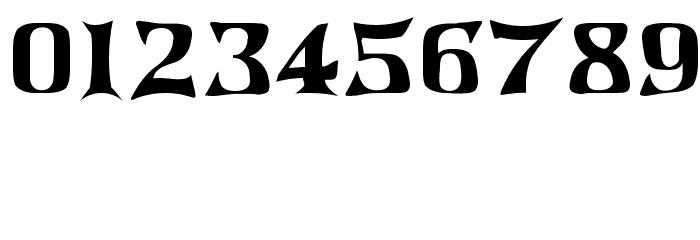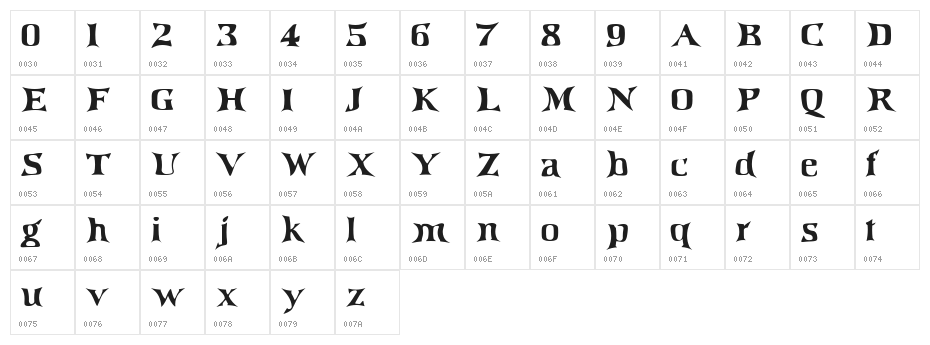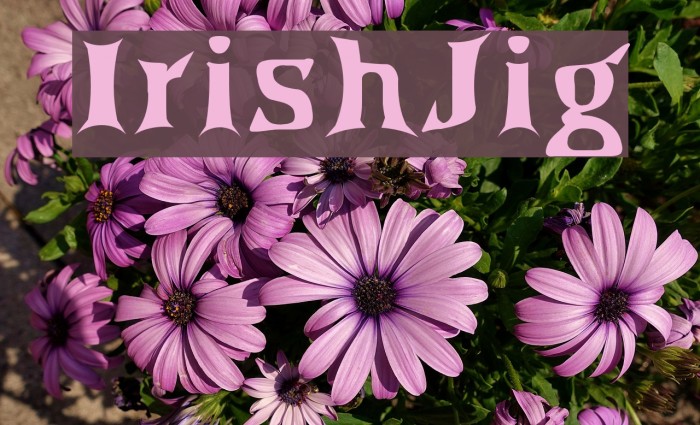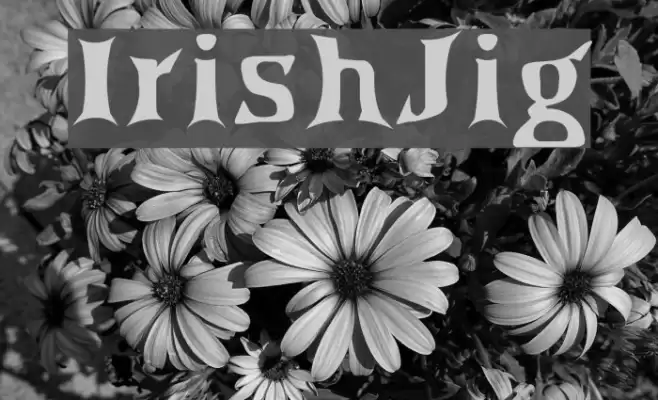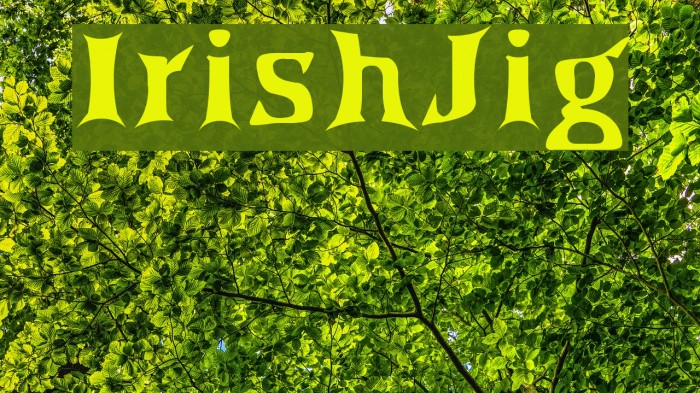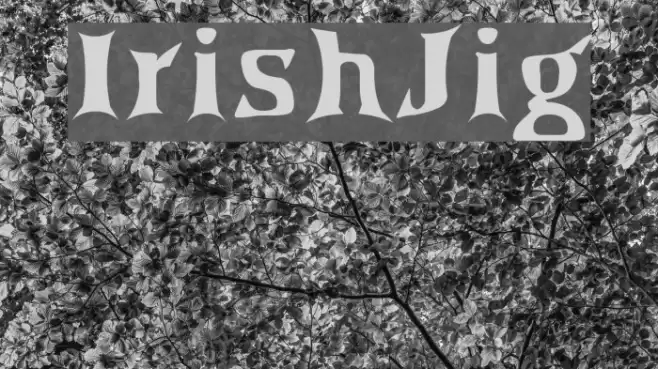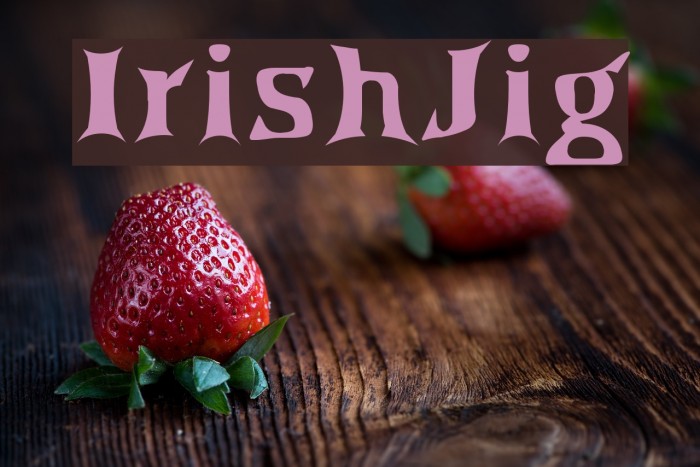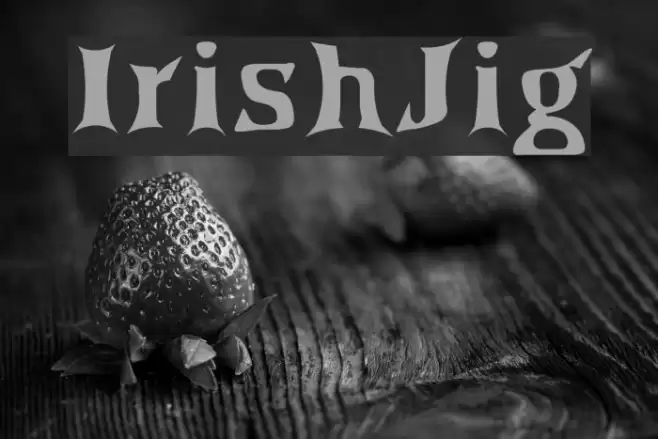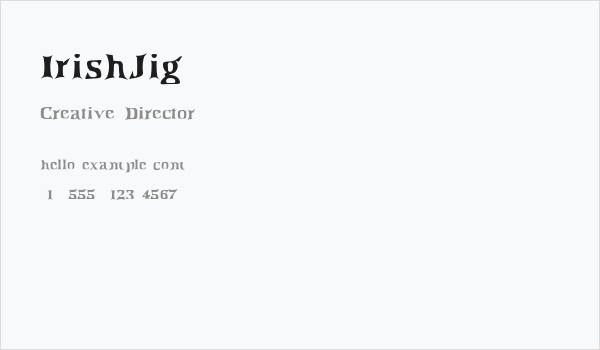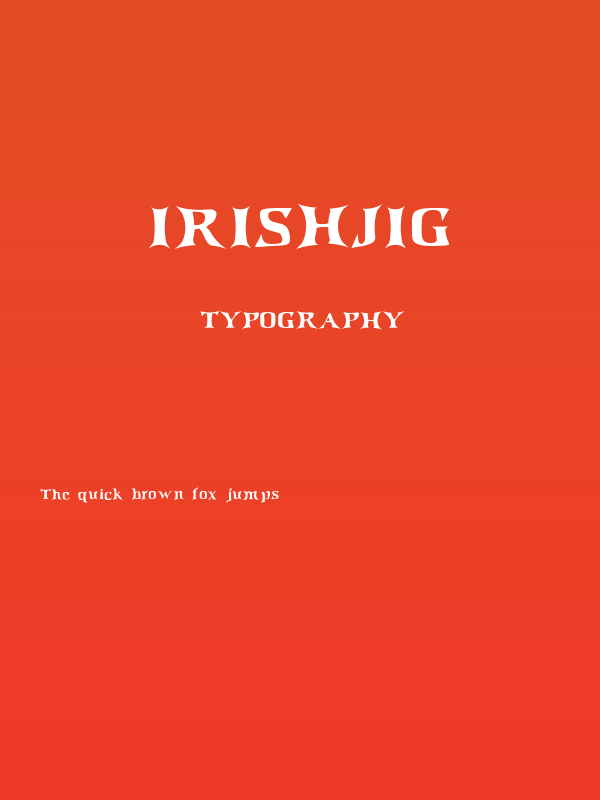
IrishJig Font
IrishJig Description
This font features a bold, decorative style with a distinct Celtic influence, characterized by sharp, angular serifs and a slightly condensed form. The uppercase letters are particularly striking, with a medieval flair that evokes a sense of history and tradition. The lowercase letters maintain the same stylistic elements, ensuring consistency throughout the typeface. Numbers are equally bold and decorative, making them stand out in any design. The special characters complement the overall aesthetic, adding versatility to the font's use. This typeface is perfect for projects that require a touch of the dramatic or historical, such as themed events, branding for traditional products, or any design that seeks to capture an old-world charm.
| Proposed Projects | Ideal for themed events, traditional branding, or designs needing historical flair. |